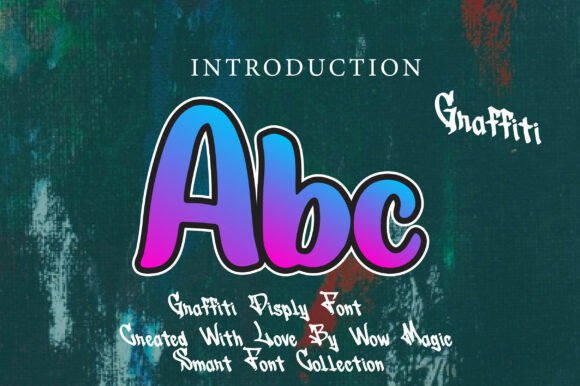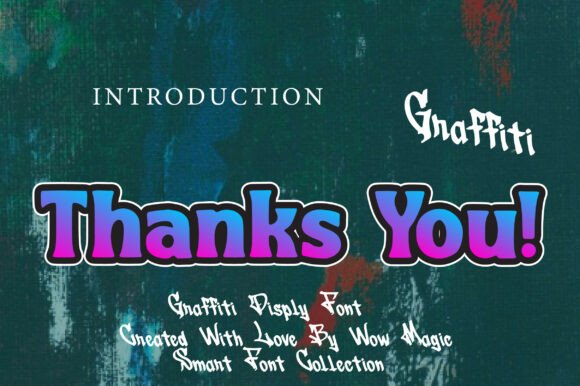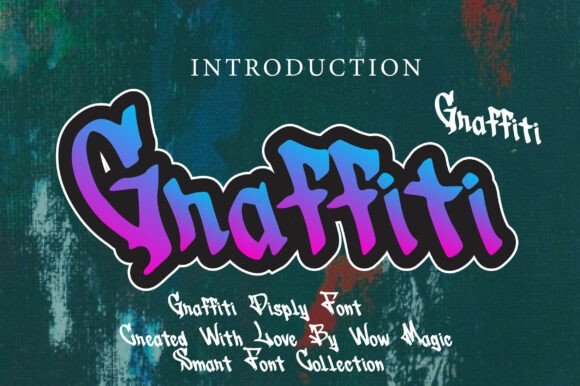
Unleash the Rebellion: Exploring the Graffiti Font
Graffiti, a bold blackletter-inspired street font, has taken the design world by storm with its unique blend of classic gothic letterforms and raw urban attitude. This typeface is not just a font; it’s an expression of rebellion, a nod to the streets, and a bridge between historical influences and modern aesthetics.
The Essence of Graffiti Font
Designed with sharp angles, dramatic strokes, and expressive curves, Graffiti captures the rebellious spirit of street culture while maintaining a strong historical influence. The stylized details and edgy construction give it a powerful presence, making it perfect for a variety of design projects that demand attention and exude an urban vibe.
Historical Roots and Modern Appeal
Graffiti’s design roots itself in traditional blackletter typefaces, which were popular in the Middle Ages for their dramatic and expressive letterforms. However, Graffiti adds a modern twist with its bold lines, sharp edges, and a raw, unpolished feel that speaks directly to street culture and urban aesthetics. This blend of old and new makes Graffiti a versatile font suitable for various applications, from vintage-inspired designs to contemporary branding.
Perfect Applications for Graffiti Font
Graffiti’s unique characteristics make it an ideal choice for several design projects:
• Streetwear Branding: Infuse your streetwear line with an authentic urban feel that resonates with the youth.
• Tattoo Designs: The bold and expressive nature of Graffiti makes it perfect for tattoo artists looking for a font that stands out.
• Music & Album Covers: Give your music project a rebellious edge with a font that screams attitude and style.
• Urban Posters: Create eye-catching posters for events, campaigns, or promotions that demand attention.
• Logo Design: Make a statement with a logo that embodies strength, character, and an urban appeal.
• Hip-Hop Graphics: The font’s street culture essence makes it a natural fit for hip-hop related graphics and branding.
• Skate Culture Projects: Pay homage to skate culture with a font that reflects its bold and daring spirit.
• Bold Headlines: Add impact to your articles, blogs, or advertisements with headlines that grab attention.
Why Choose Graffiti Font?
Choosing Graffiti for your design project means you’re opting for more than just a font; you’re embracing an attitude, a movement, and a way to connect with an audience that appreciates raw, unfiltered expression. Here are a few reasons why Graffiti stands out:
• Unique Aesthetic: Graffiti offers a distinctive look that sets it apart from more traditional typefaces.
• Versatility: Its adaptability makes it suitable for digital and print projects, across various themes and industries.
• Emotional Connection: Graffiti helps create an instant connection with the target audience by conveying a sense of rebellion and authenticity.
Author Wow Magic
Graffiti font is more than just a typeface; it’s a statement, a form of self-expression, and a bridge between the historical and the contemporary. Whether you’re a designer, a craftsperson, or someone looking to add an edge to your project, Graffiti offers the perfect blend of vintage vibes and urban attitude. With its sharp angles, dramatic strokes, and expressive curves, Graffiti is poised to make a bold statement in the world of design. So, unleash the rebellion and let Graffiti add intensity, character, and street authenticity to your typography.